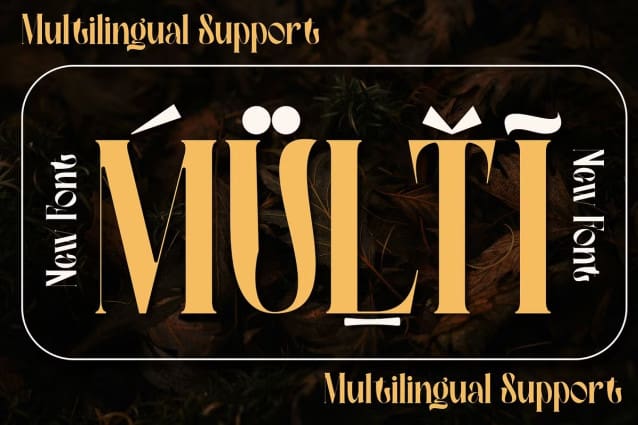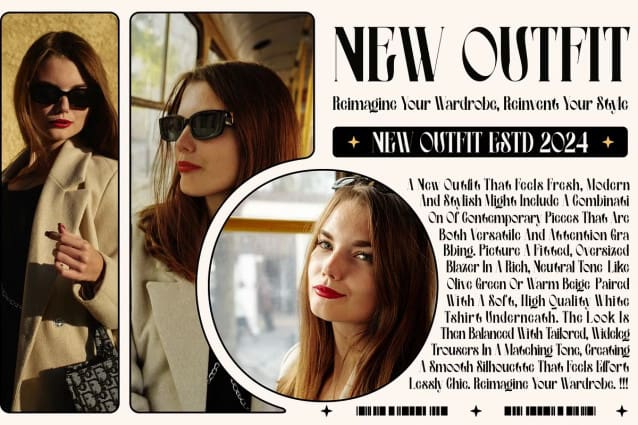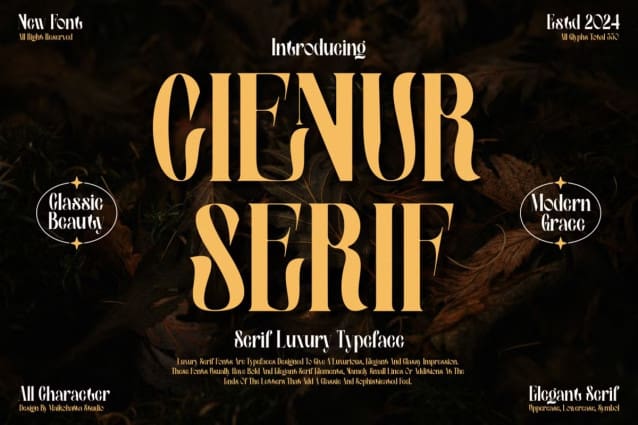
Cienur Serif Font
Cienur Serif font is a typeface with distinctive features that create an impression of luxury, elegance and solidity. This font includes a variety of design elements such as balanced thin and thick lines, gentle curves and clean, elegant serifs. The sharp corners and subtle details of each character create a high aesthetic impression and exude elegance.